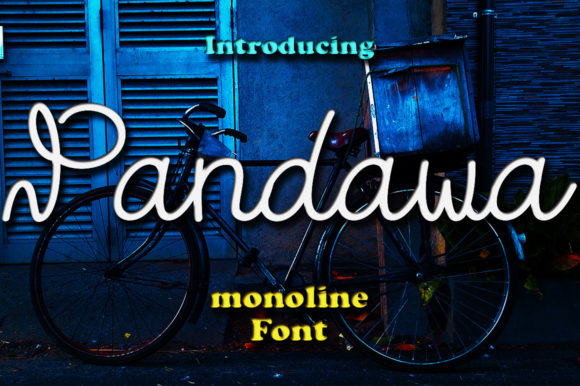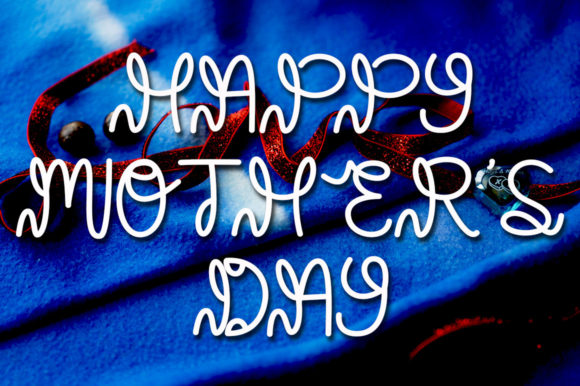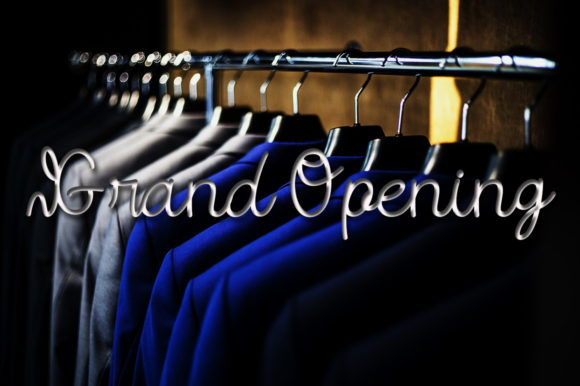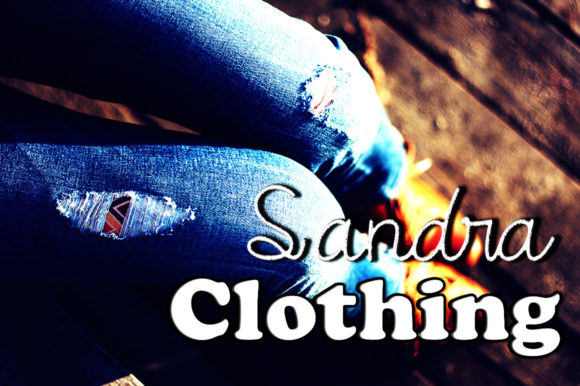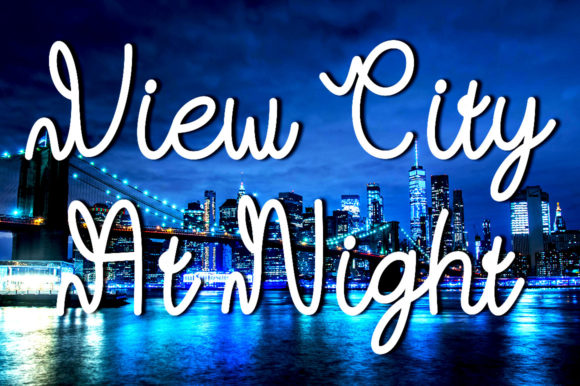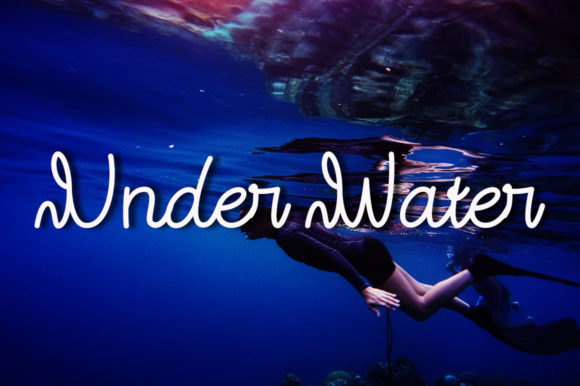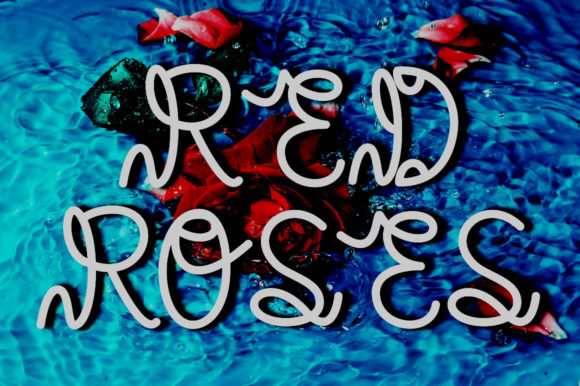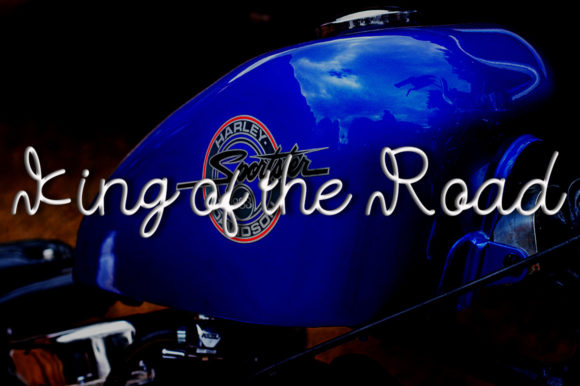
Pandawa Font
About Pandawa Font
Pandawa stands out as a superb handwritten font that effortlessly elevates your work with its exquisite and gracefully curved lines. This font is a perfect choice for a myriad of creative projects, including product packaging, branding initiatives, magazine covers, social media graphics, wedding materials, or any application where you want to express words above a background with a touch of elegance.
The font’s charm lies in its elegant and curvy design, offering a perfect blend of sophistication and creativity. Pandawa adds a personalized touch to your projects, making it an ideal choice for those seeking a distinctive and memorable aesthetic.
In the realm of product packaging, Pandawa proves to be exceptional, transforming labels and packaging materials into visually captivating pieces. Its elegant lines contribute to a refined and modern presentation, enhancing the overall appeal of the product. From artisanal goods to cosmetics, Pandawa brings a sense of sophistication that resonates with discerning consumers.
For branding projects, Pandawa becomes a valuable asset, imparting a sense of authenticity and uniqueness. The handwritten style conveys a touch of warmth and personality, making it suitable for businesses and individuals aiming to establish a distinct visual identity. Whether used in logos, promotional materials, or on digital platforms, the font adds a refined touch that sets the brand apart.
Magazine covers benefit from Pandawa’s ability to convey a sense of modernity and style. The curvy lines of the font bring a dynamic and eye-catching element to cover designs, making it an excellent choice for publications that aim to stand out on newsstands or in digital spaces. Its versatility allows it to adapt to different genres and themes, from fashion to lifestyle.
On social media, Pandawa adds a touch of elegance to graphics and posts. Whether used in quotes, announcements, or promotional materials, the font’s handwritten elegance attracts attention and enhances the visual appeal of content. Its adaptability makes it suitable for various platforms, helping to maintain a consistent and stylish brand presence.
In wedding materials, Pandawa imparts a romantic and sophisticated vibe. From invitations to place cards, the font’s elegant lines contribute to a timeless aesthetic that complements the joyous occasion. Its ability to express words above a background with grace makes it an ideal choice for creating memorable and personalized wedding stationery.
In summary, Pandawa is not just a font; it’s a design asset that brings elegance and style to a wide range of creative projects. With its superbly crafted and curvy lines, Pandawa is poised to make your work stand out, adding a touch of sophistication to every application, from product packaging to social media graphics and beyond.